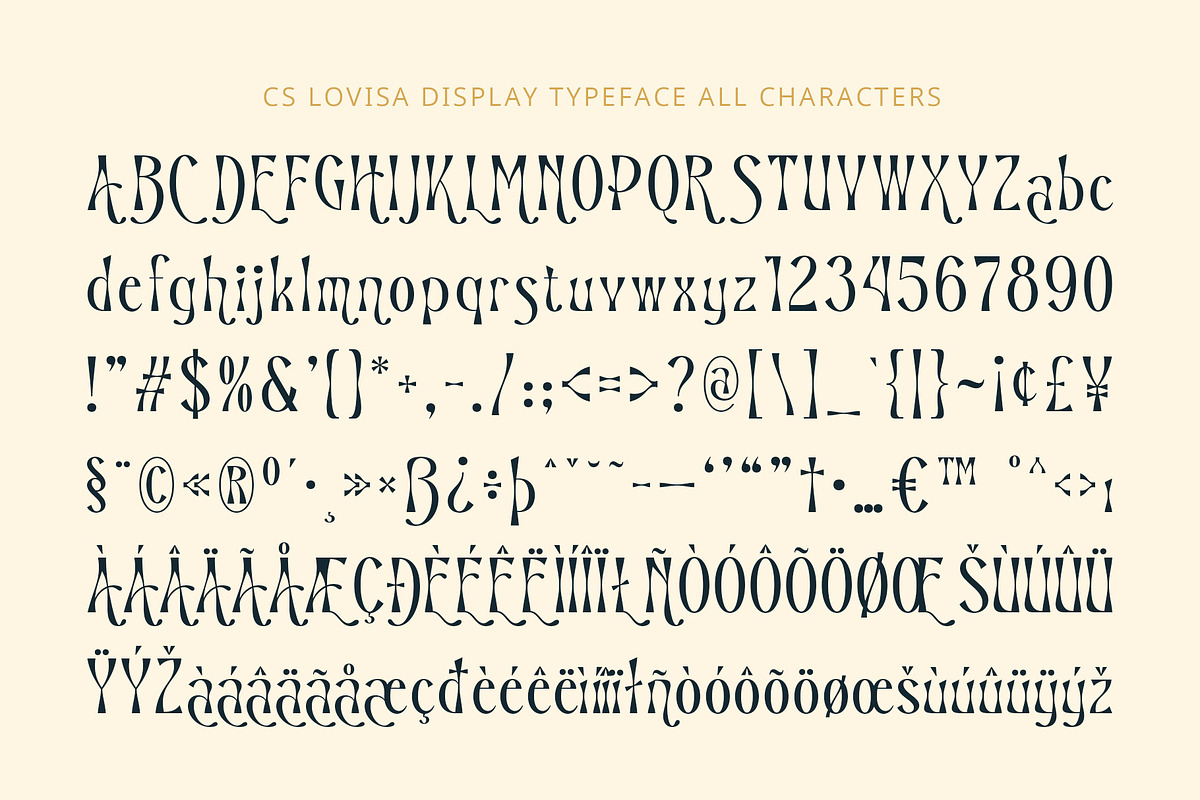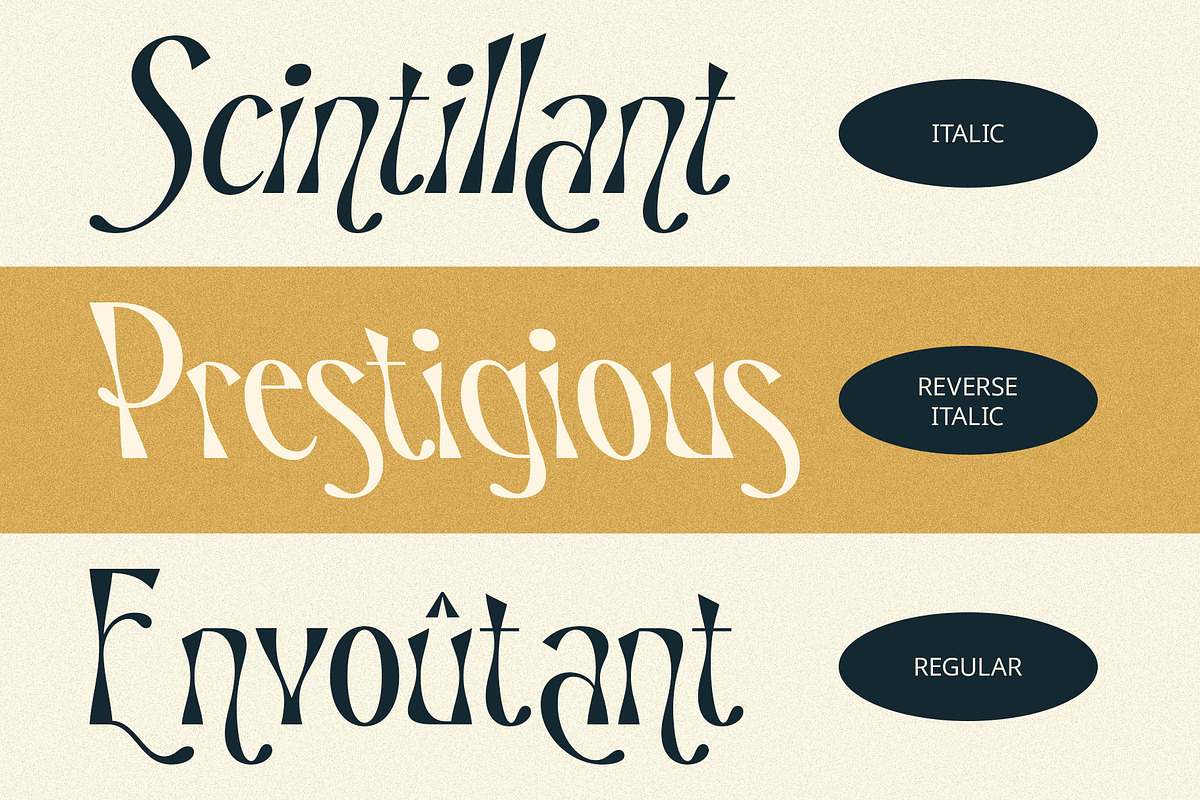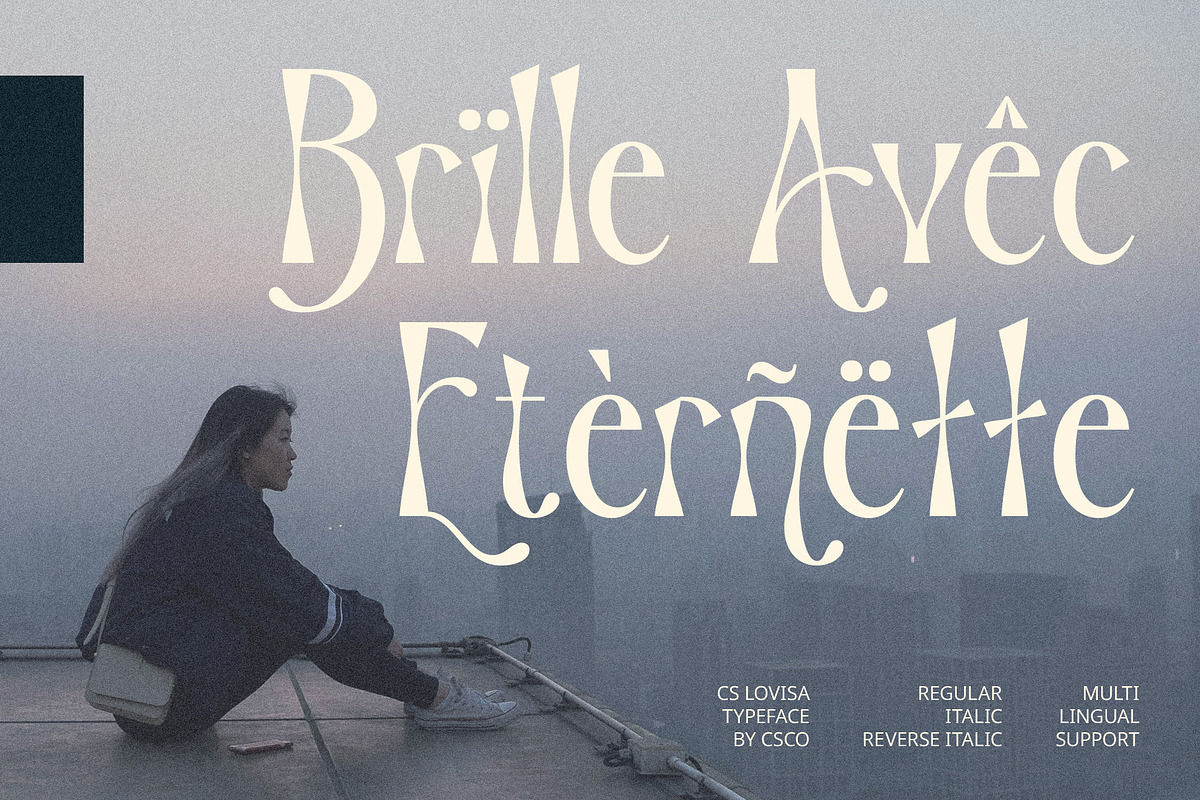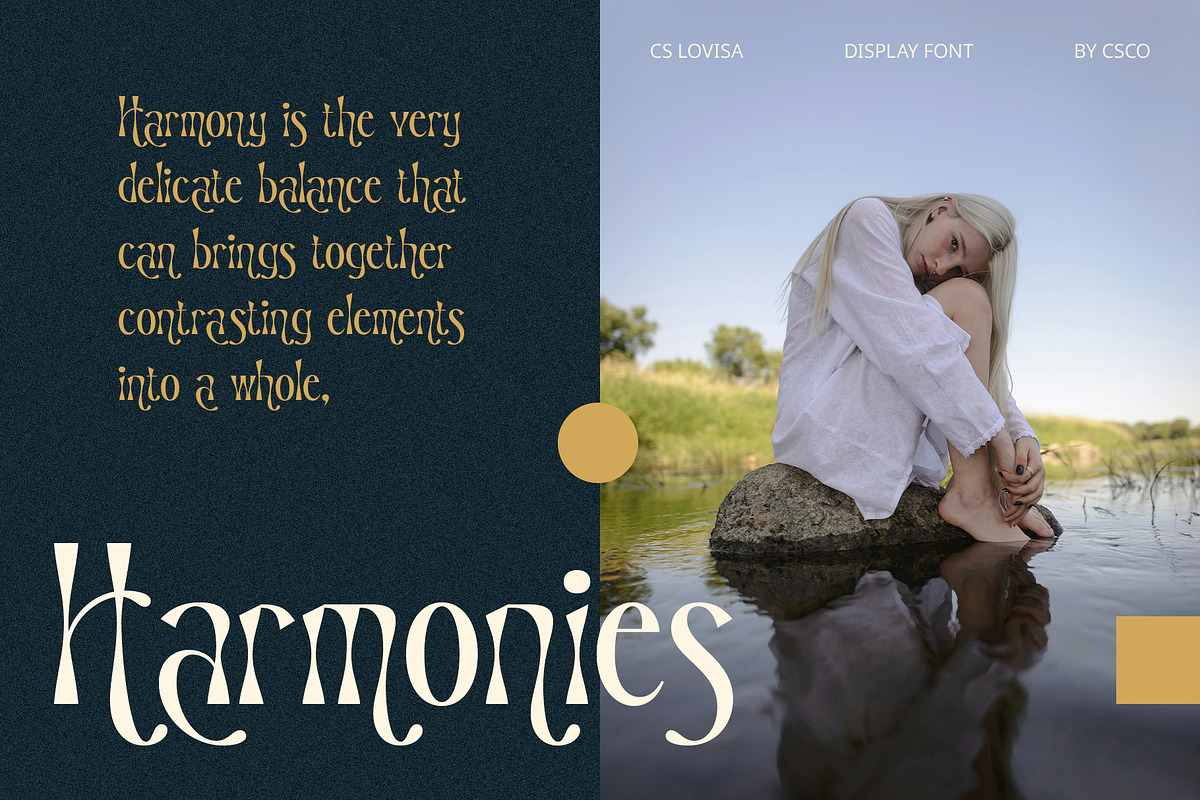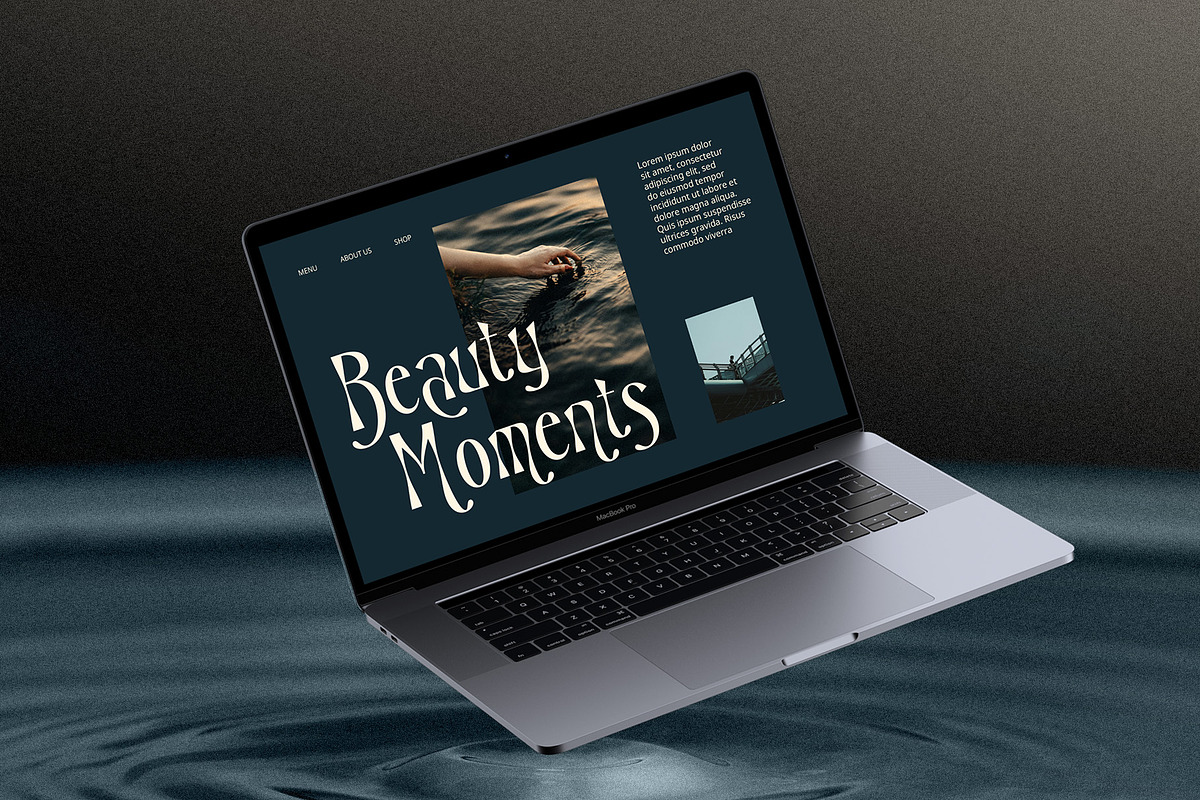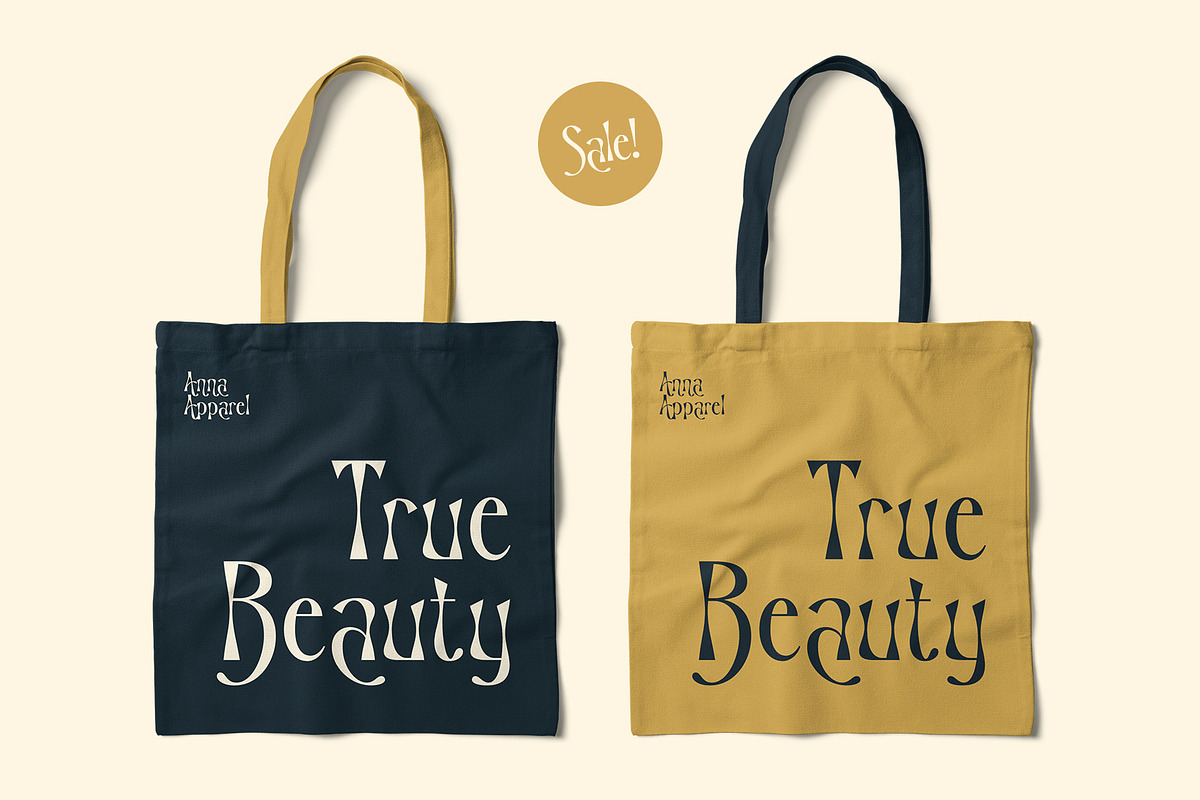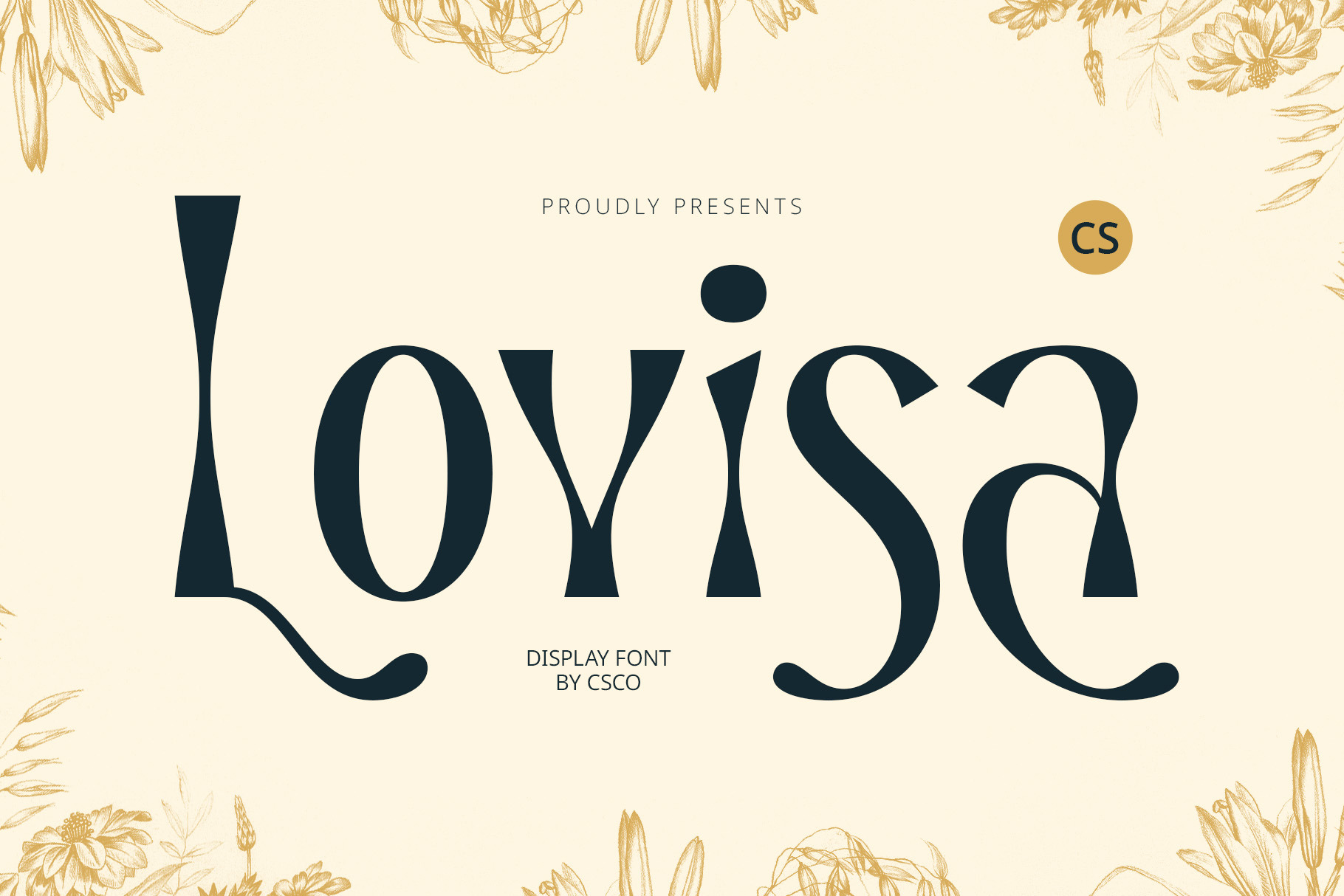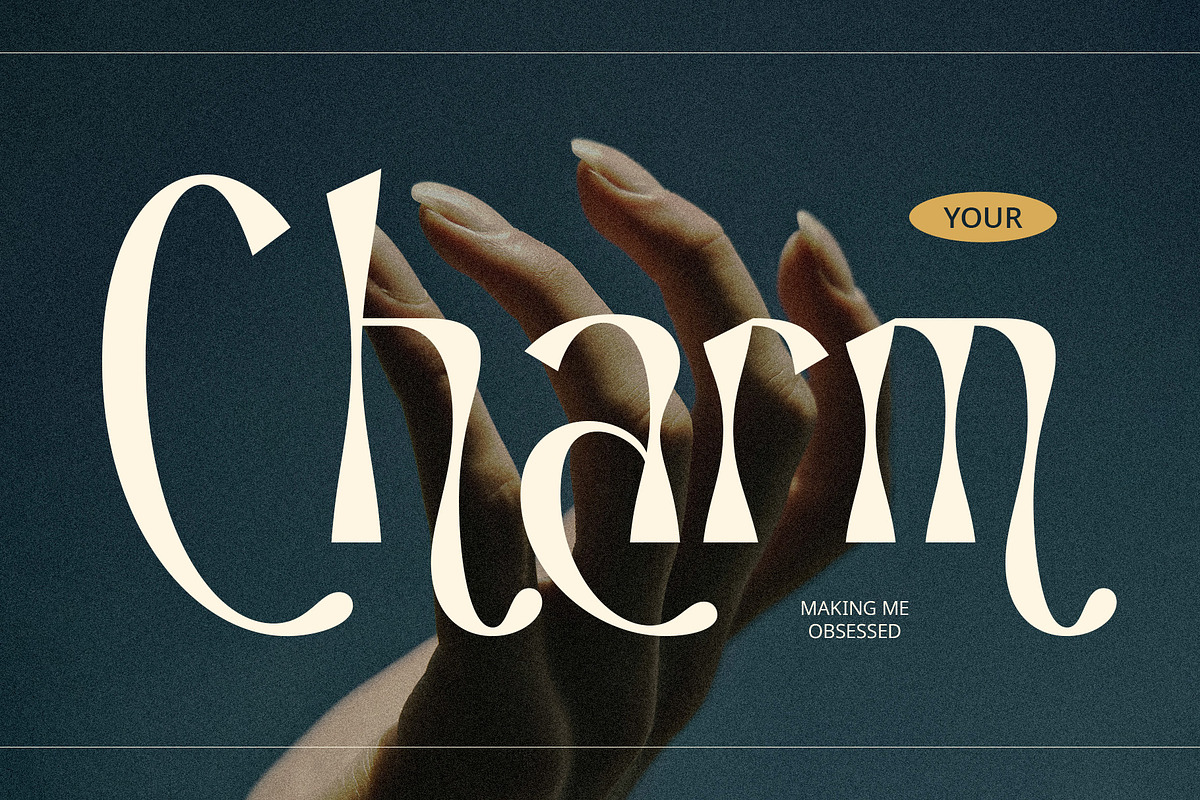
CS Lovisa – Fantasy Font
CS Lovisa Font: Enchanting Fantasy Display Font
Unleashing Imagination CS Lovisa is a delightful fantasy display font that embodies a cheerful and imaginative character. Designed to captivate and enchant, this font incorporates fantastical elements that spark curiosity and creativity. Its unique letterforms create a whimsical atmosphere, making it an excellent choice for design projects that aim to capture attention and evoke a sense of wonder.
Playful and Creative Design The charm of CS Lovisa lies in its gentle curves and decorative details, which contribute to its playful vibe. The unconventional shapes of the letters add an element of surprise, creating captivating visual effects that draw the viewer in. This font excels in conveying themes of joy and fantasy, making it a perfect fit for storybooks, children’s event posters, and creative branding for imaginative products.
Versatile Applications Whether used in print or digital formats, CS Lovisa brings a magical touch to any project. It’s particularly well-suited for children’s literature, where its enchanting design complements the narrative and engages young readers. Additionally, this font can enhance the branding of products aimed at creative markets, such as toys, games, or artistic endeavors, establishing a distinctive identity that resonates with the audience.
- CS Lovisa Regular
- CS Lovisa Italic
- CS Lovisa Reverse Italic